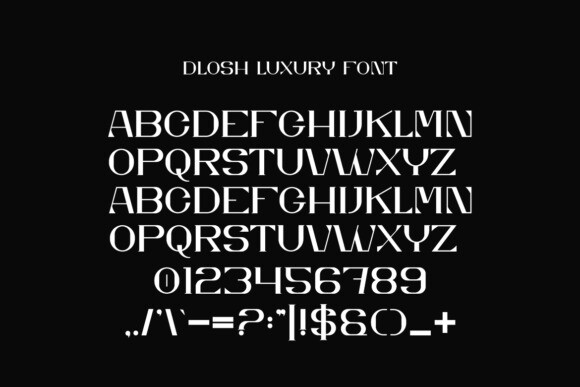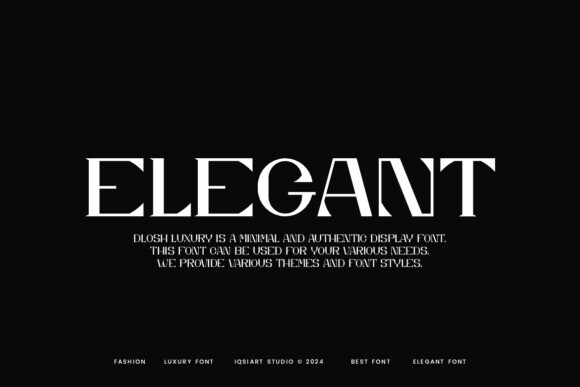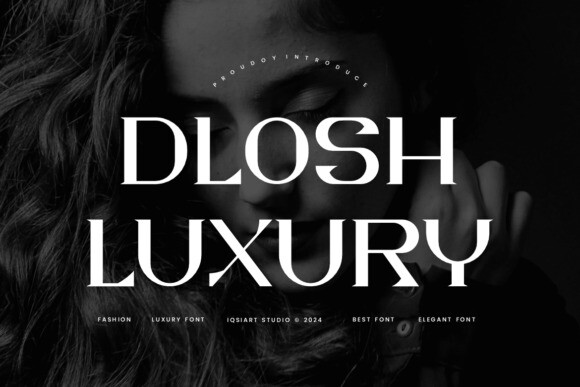
Dlosh Luxury Font
Dlosh Luxury Font is an elegant and stylish display font perfect for adding a touch of luxury to your designs. With smooth, bold letters, it stands out beautifully on invitations, logos, and packaging, giving a high-end, sophisticated look.